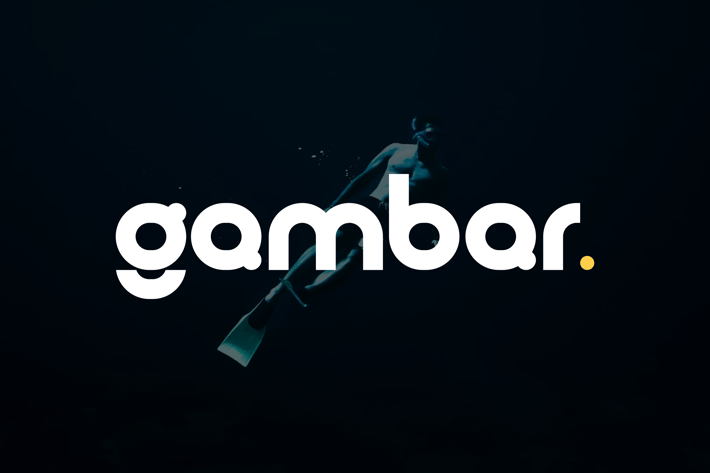
Gambar - Modern Techno Display Font
Introducing our new product Gambar Font - Modern Techno Display Font
Gambar Font - Modern Techno Display Font is a bold and authentic display font. The font is suitable for any branding project like logo,
t-shirt printing, esport, and many more. outstanding in a wide range of contexts.
Gambar Uppercase
Gambar Lowercase